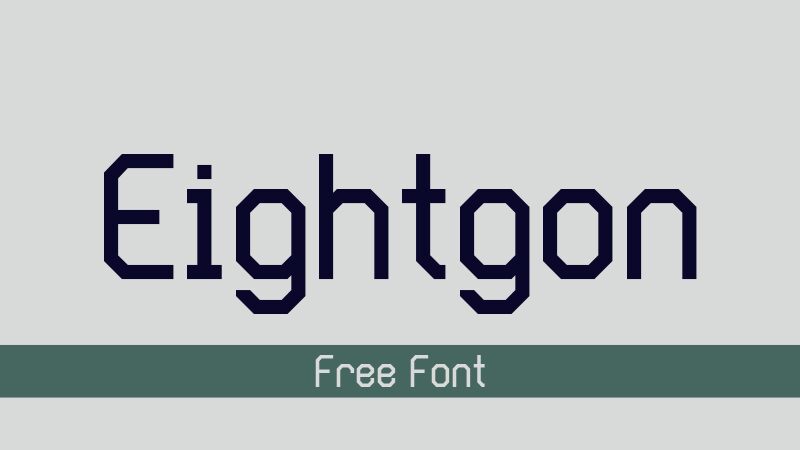
Eightgon Italic
Eightgon Italic font by GGBotNet combines octagonal angles and techno stylistics for futuristic and unusual designs. The display font has a clean geometric structure that excites modernists and fans of shapes. Everyone is welcome to get this free techno display font, where each character looks modernistic, graceful, and robotic.
Eightgon Italic is perfect for posters, web pages, promotional banners, video game design, body text in futuristic magazines, social media posts for personal accounts or brands’ profiles. It works in logos design as nothing expresses the tone of voice like fonts containing odd elements like sliced edges or flat corners on various spots.